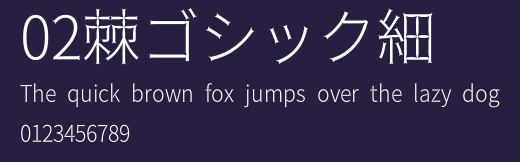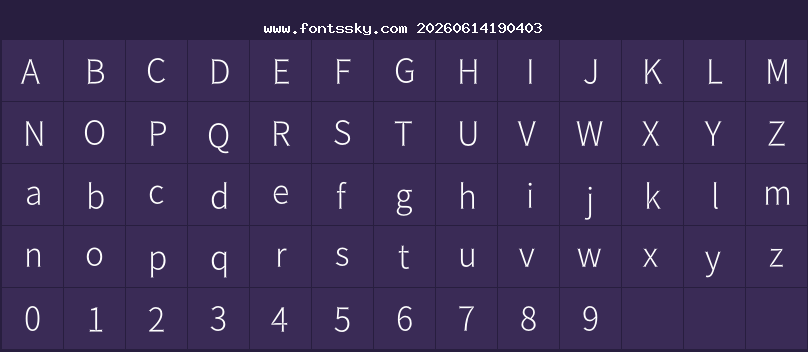
• Font Name: 02棘ゴシック細
• Full Font Name: 02棘ゴシック細
• PostScript Name: 02TogeGothic-Light
About 02棘ゴシック細.otf
02棘ゴシック細.otf is a modern, elegant sans-serif font designed for ultimate readability and visual harmony. Perfect for branding, headlines, web design, and print materials.